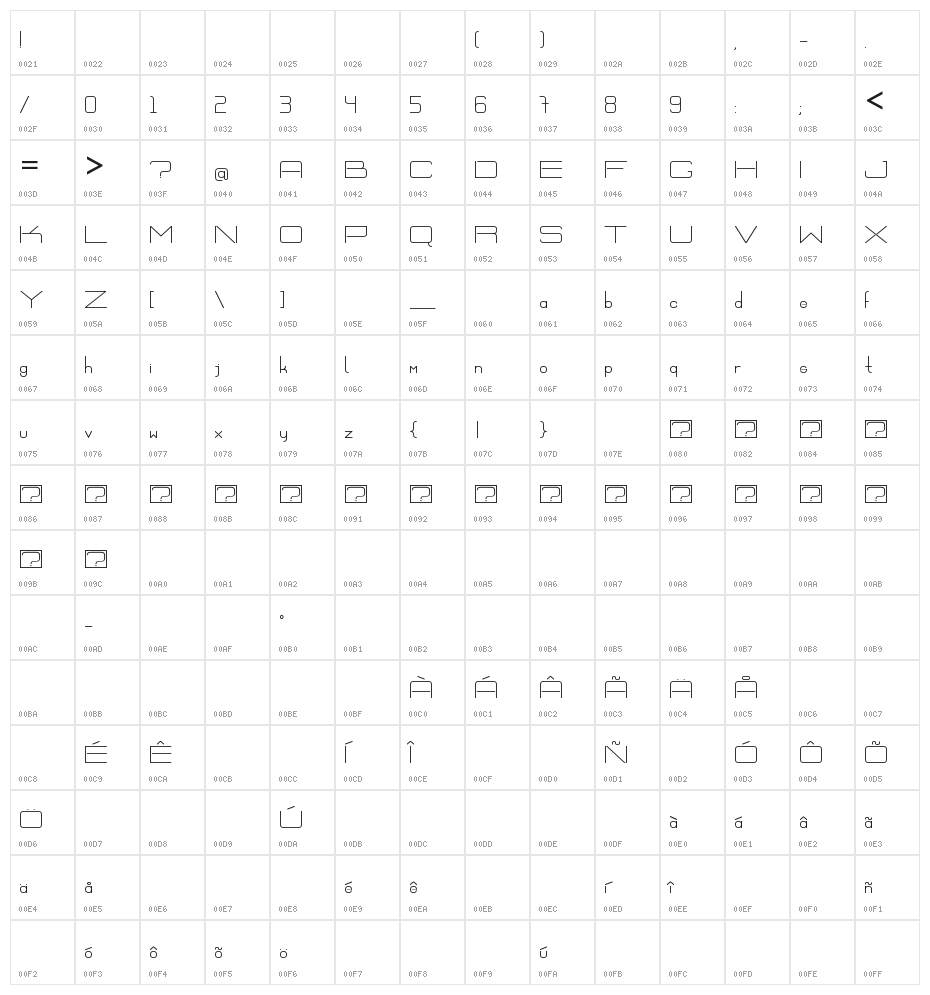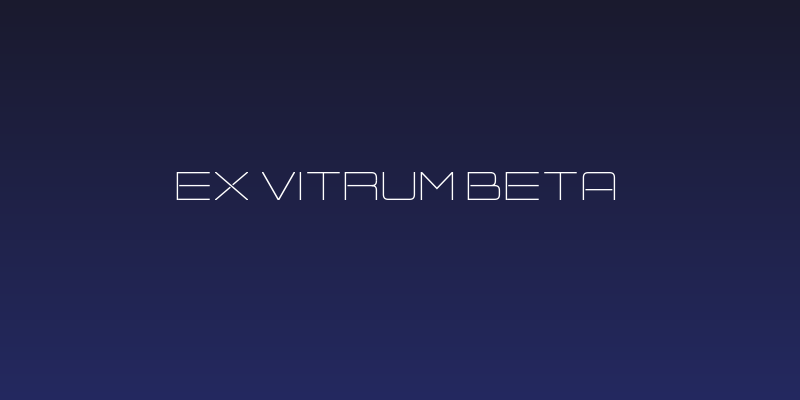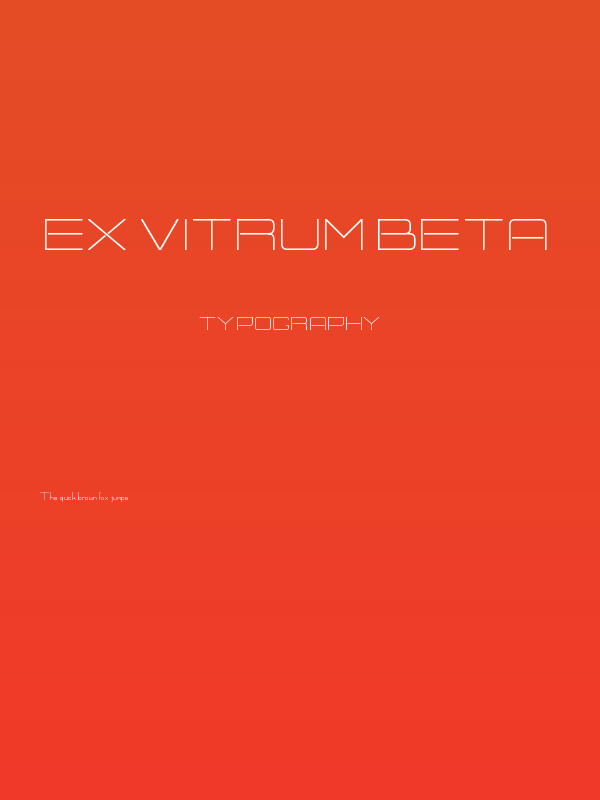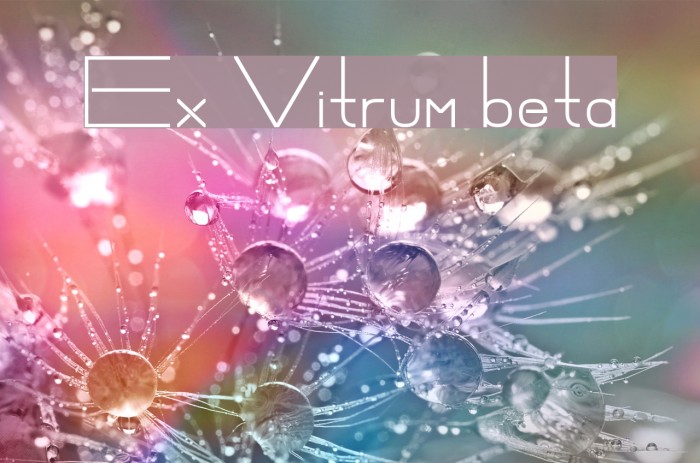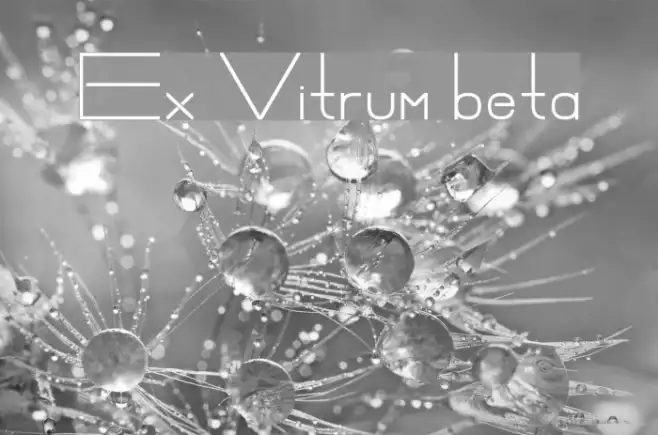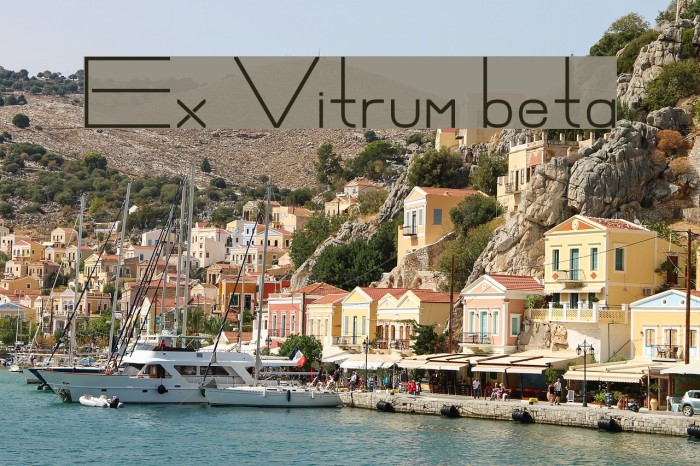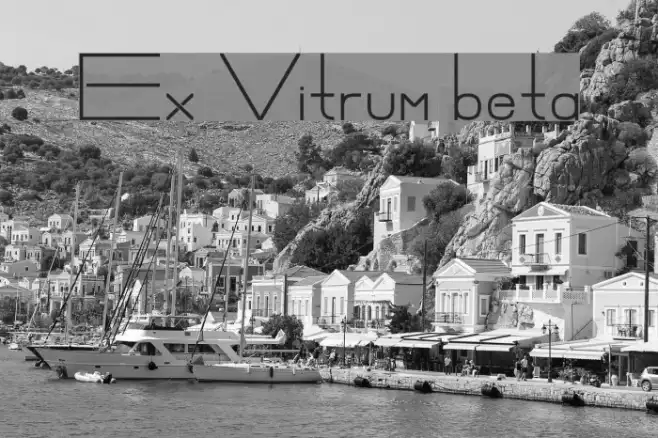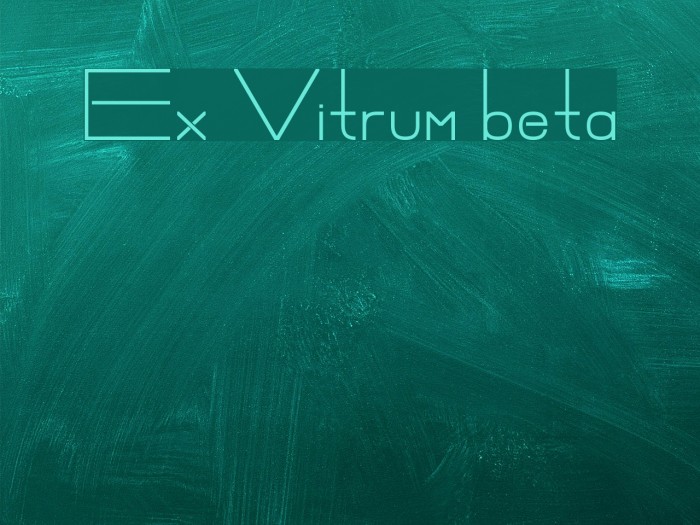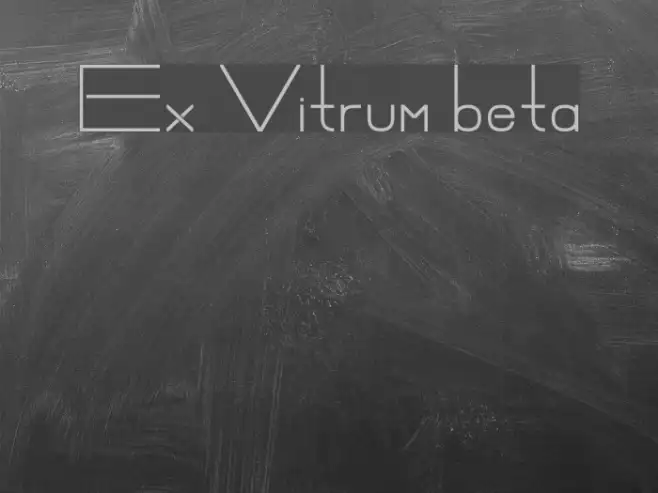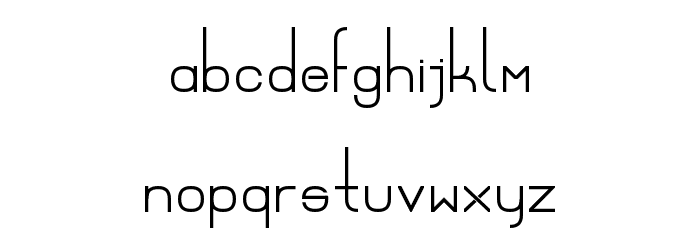
Ex Vitrum beta Font
Ex Vitrum beta Description
This font features a modern, geometric design with clean, straight lines and rounded edges. The uppercase letters are uniform in height, creating a cohesive and structured appearance. The lowercase letters maintain the geometric style, with some characters like 'g' and 'y' having unique, elongated descenders. The numerals are consistent with the overall design, offering a clear and legible appearance. Special characters are minimalistic, aligning with the font's sleek aesthetic. The font's thin strokes and open counters contribute to its airy and futuristic feel.
| Proposed Projects | Ideal for tech branding, modern web design, and minimalist posters. |